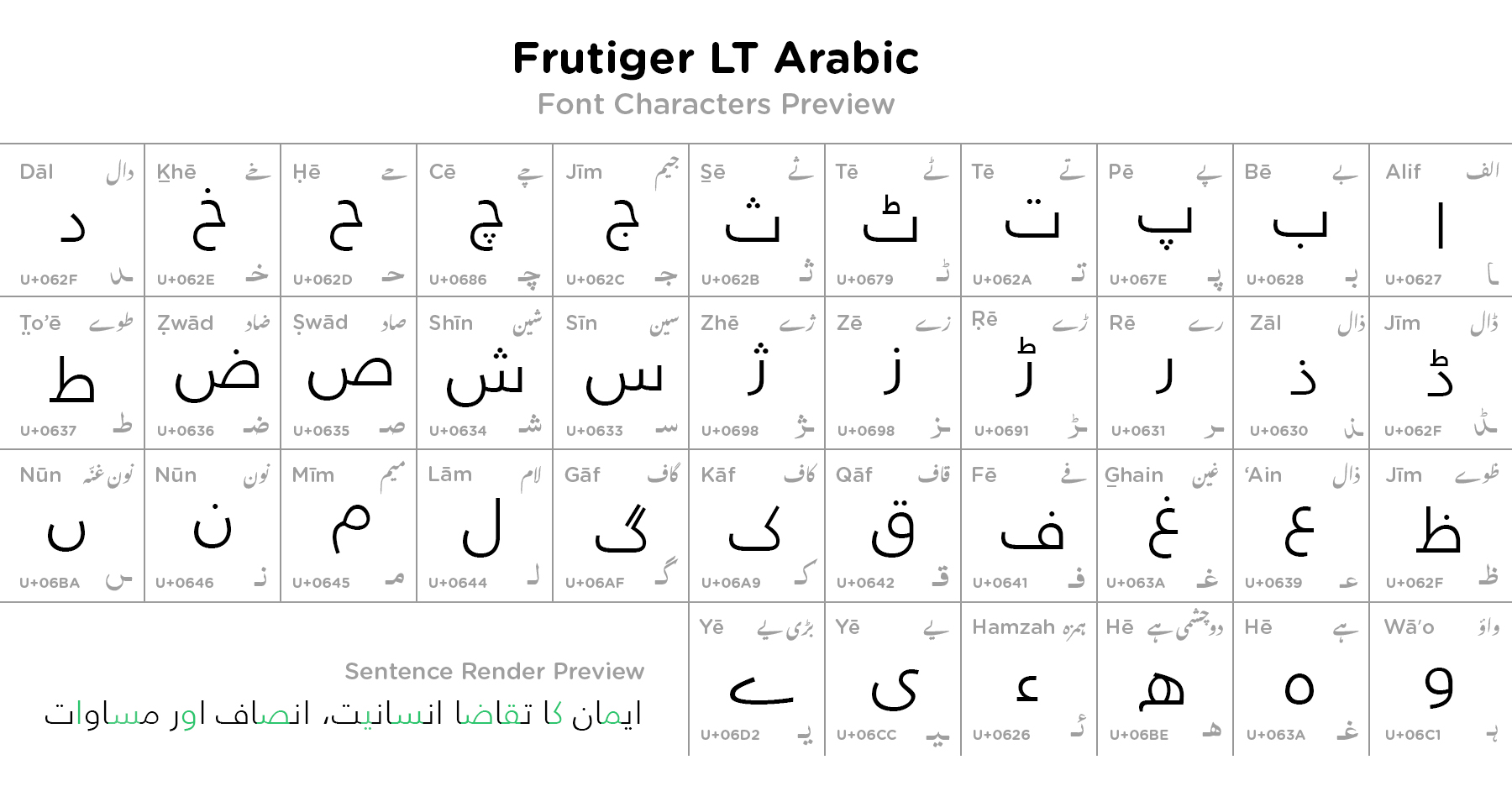
Frutiger LT Arabic, crafted by Lebanese designer Nadine Chahine in consultation with Adrian Frutiger, serves as a complement to the Latin Frutiger typeface. A style, it includes modern design elements to form its letter designs. This blend results in a humanist Kufi style, characterized by handwritten structures and subtle variations, offering a more approachable and informal alternative to the traditionally geometric Kufi styles. Like its Latin counterpart, Frutiger Arabic is primarily intended for signage but is versatile enough to suit various applications, ranging from low-resolution displays to advertising headlines and corporate branding.
The font holds all the essential Latin characters of Frutiger and provides support for Arabic, Persian, and Urdu languages. Moreover, it has an extensive charset of 586 symbols and characters and a glyph count of 557 along with proportional and tabular numerals for these languages. This makes this font family highly diverse and multipurpose, perfect for many creative tasks. Frutiger LT Arabic comes in a variety of weights to further increase its accessibility. These may include: